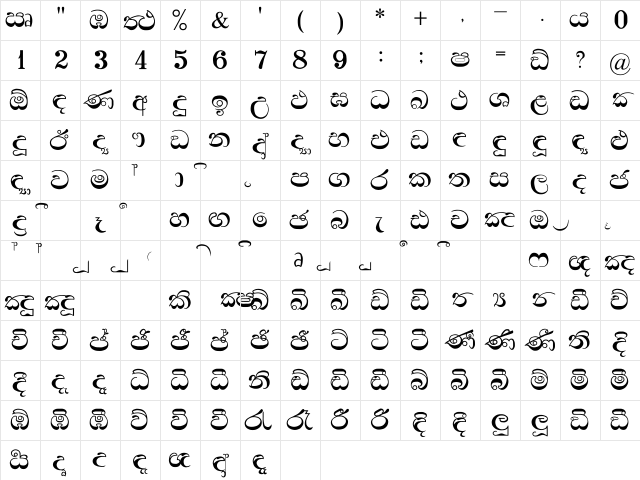
Padma Regular
Design Context for Padma
Padma is a composed and adaptable typeface that performs quietly and consistently across a wide range of design contexts.